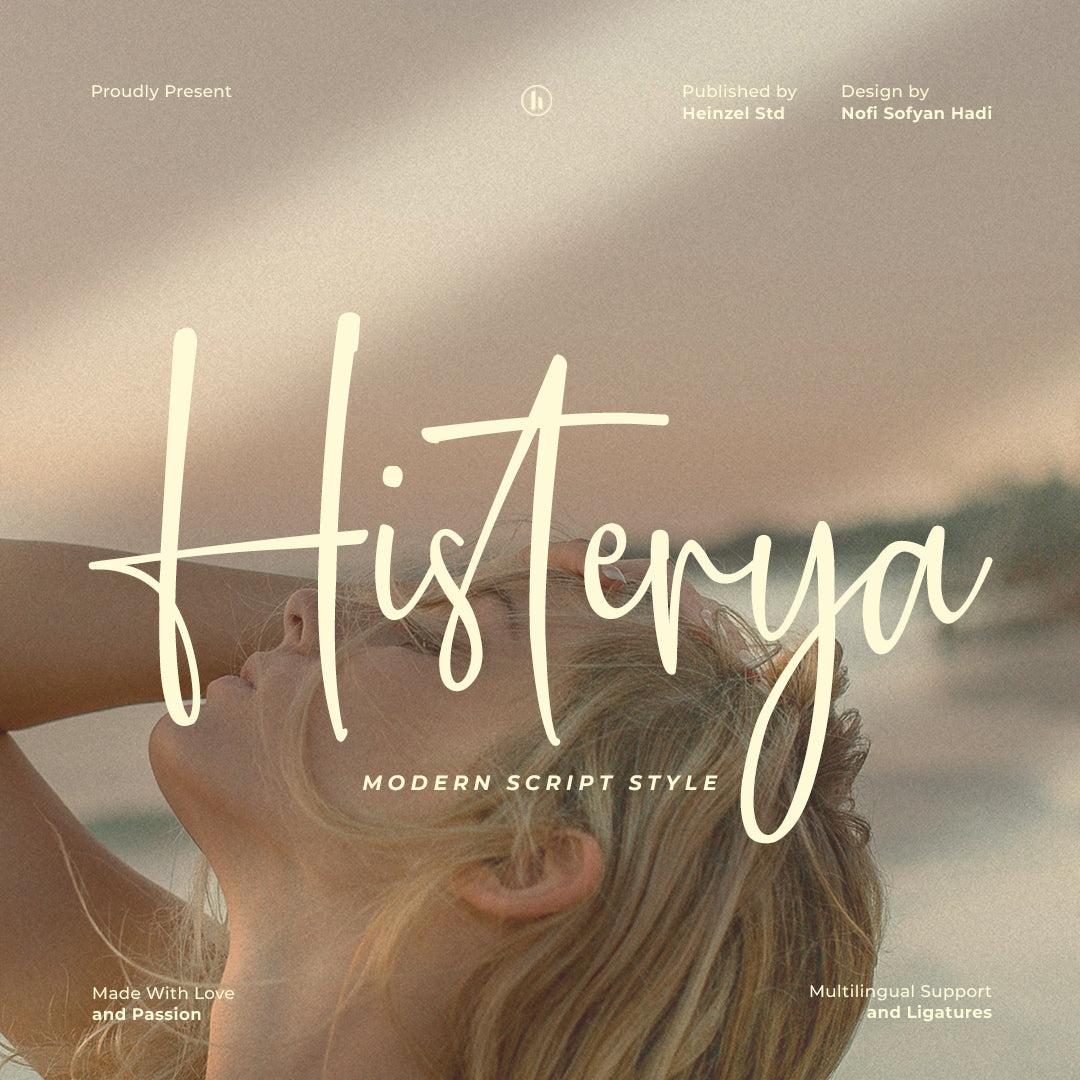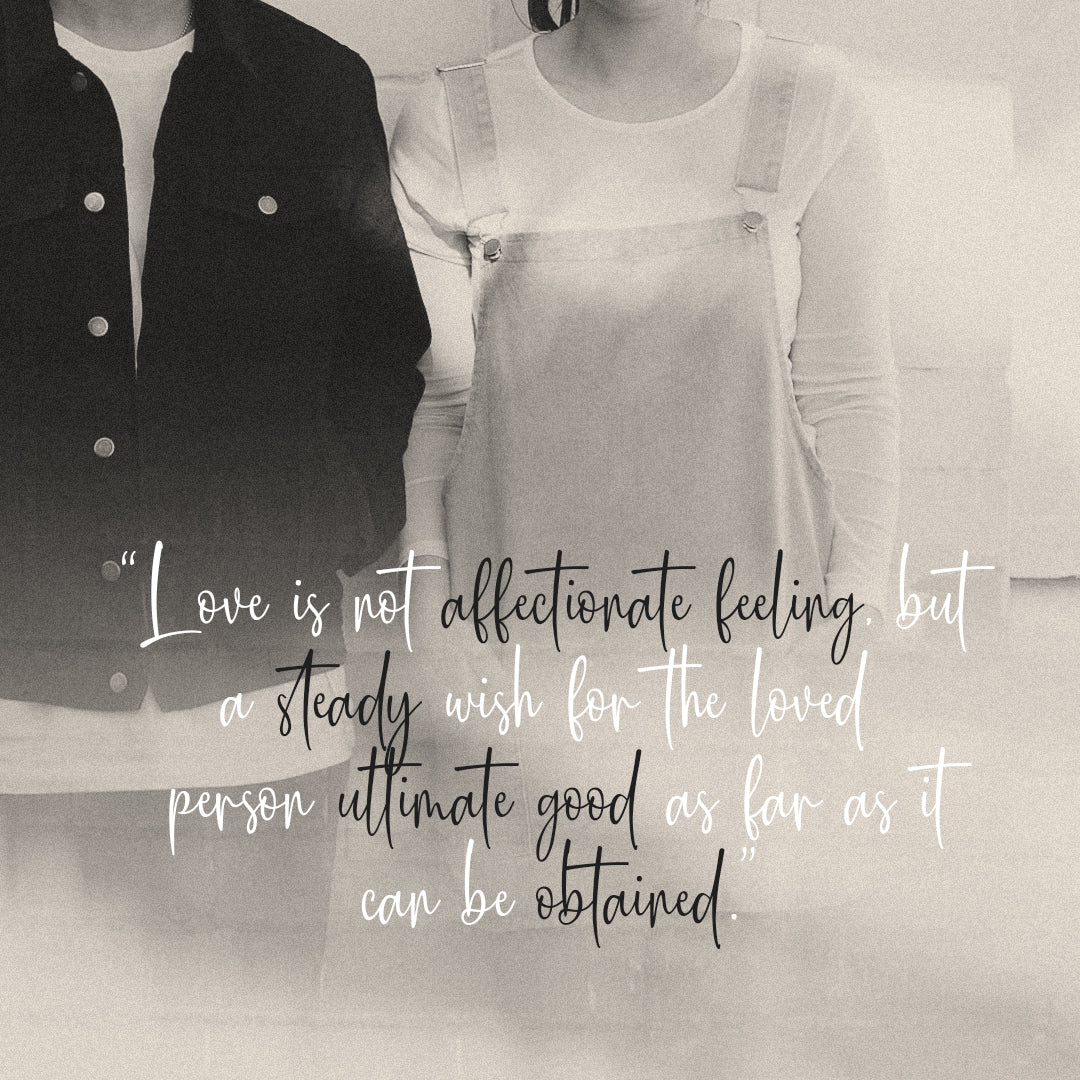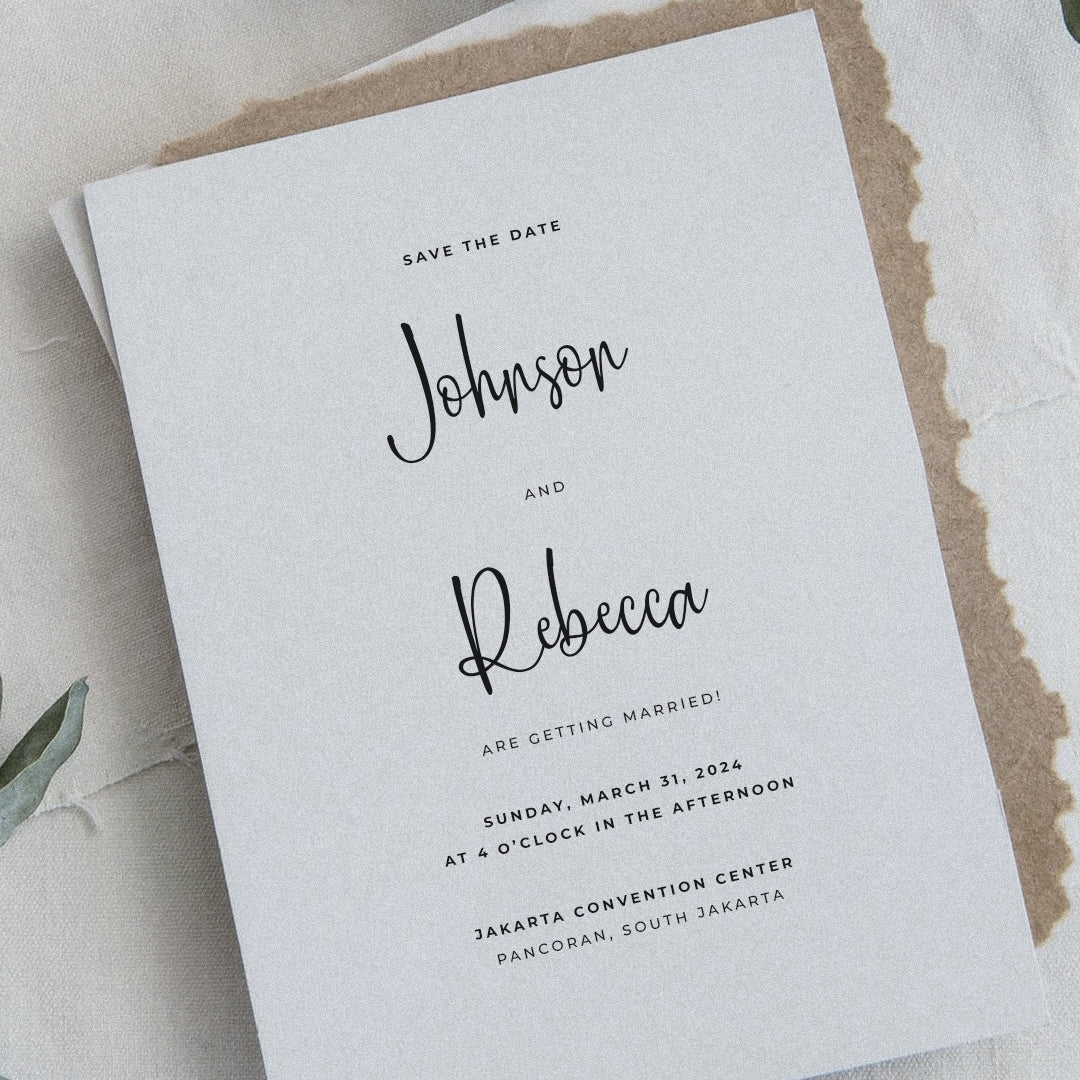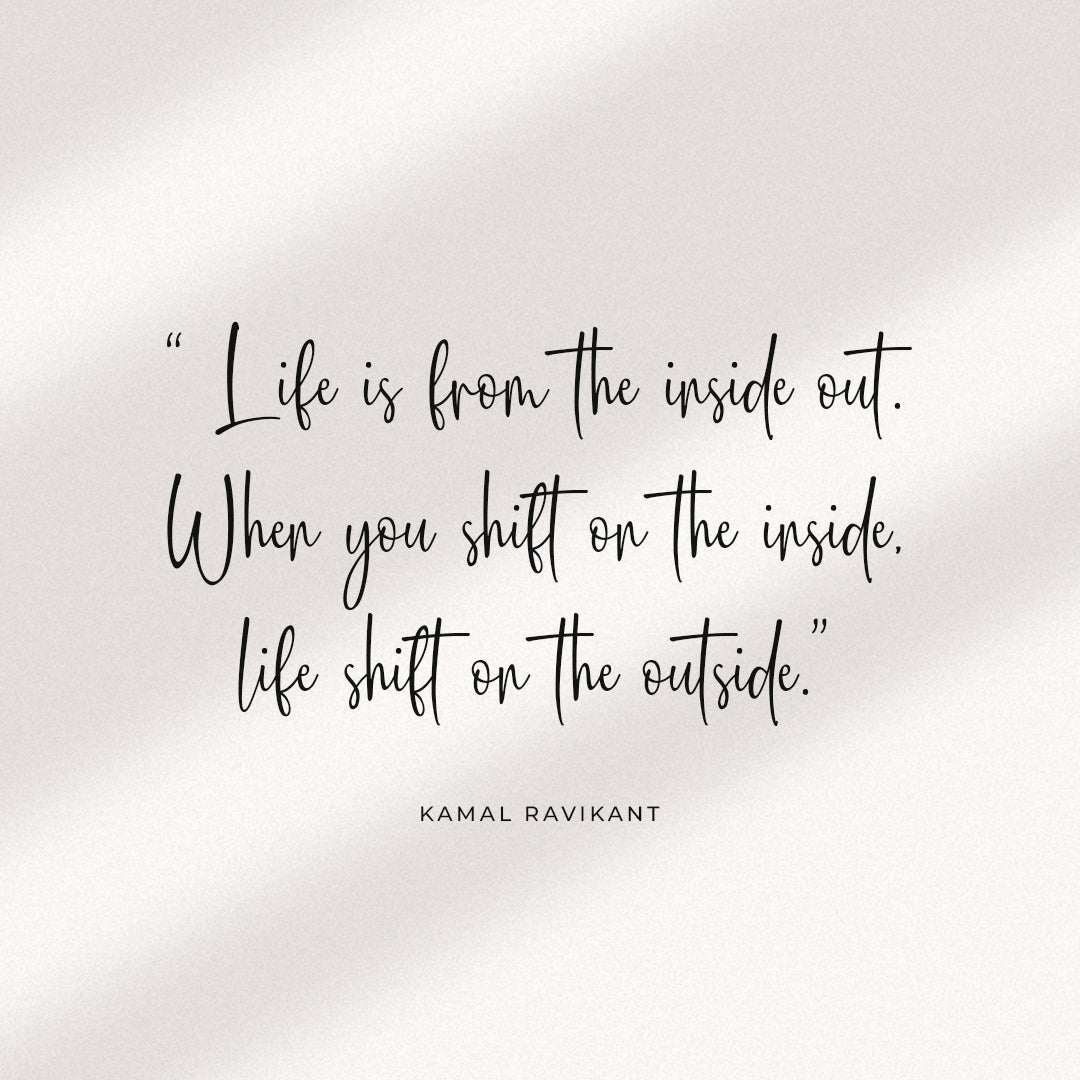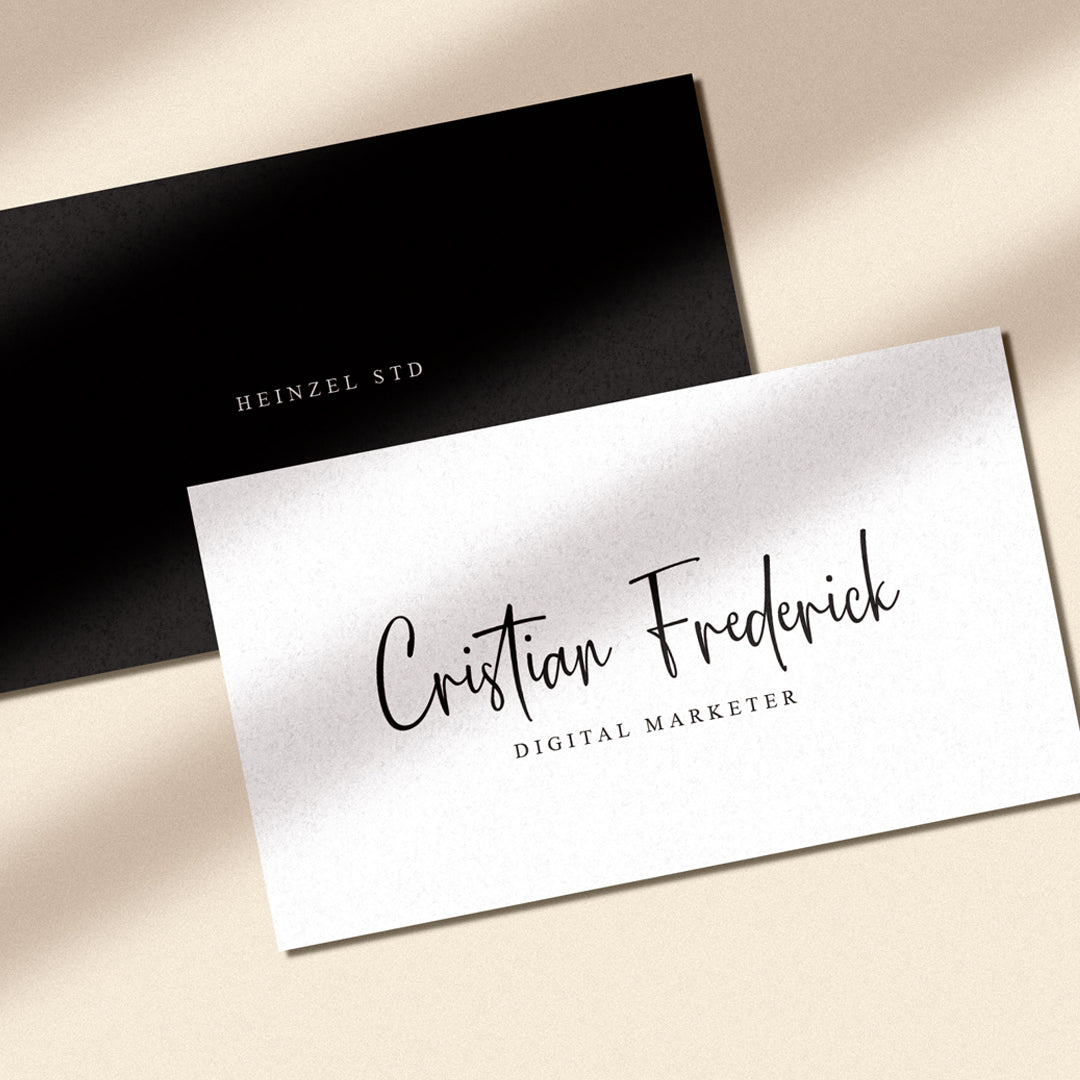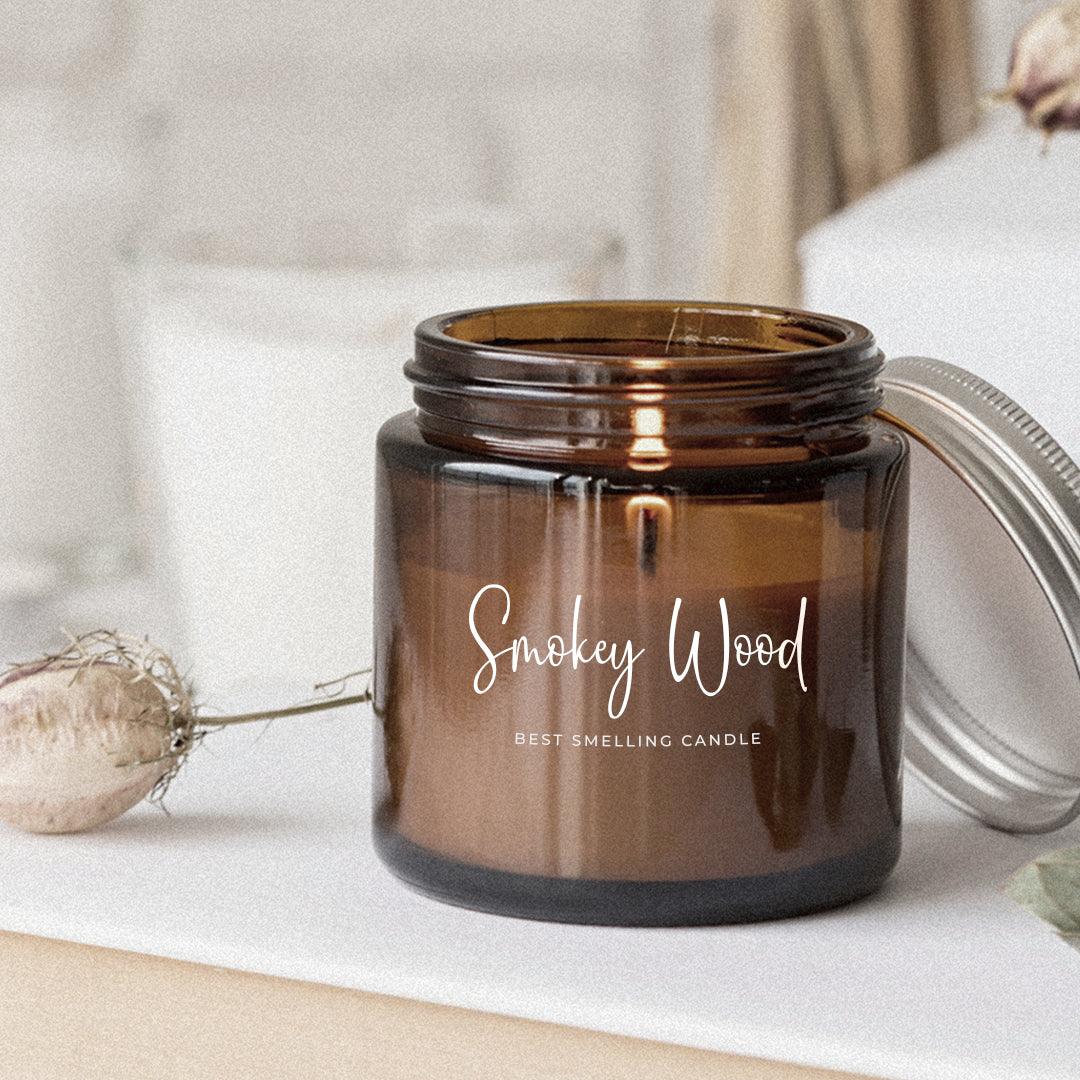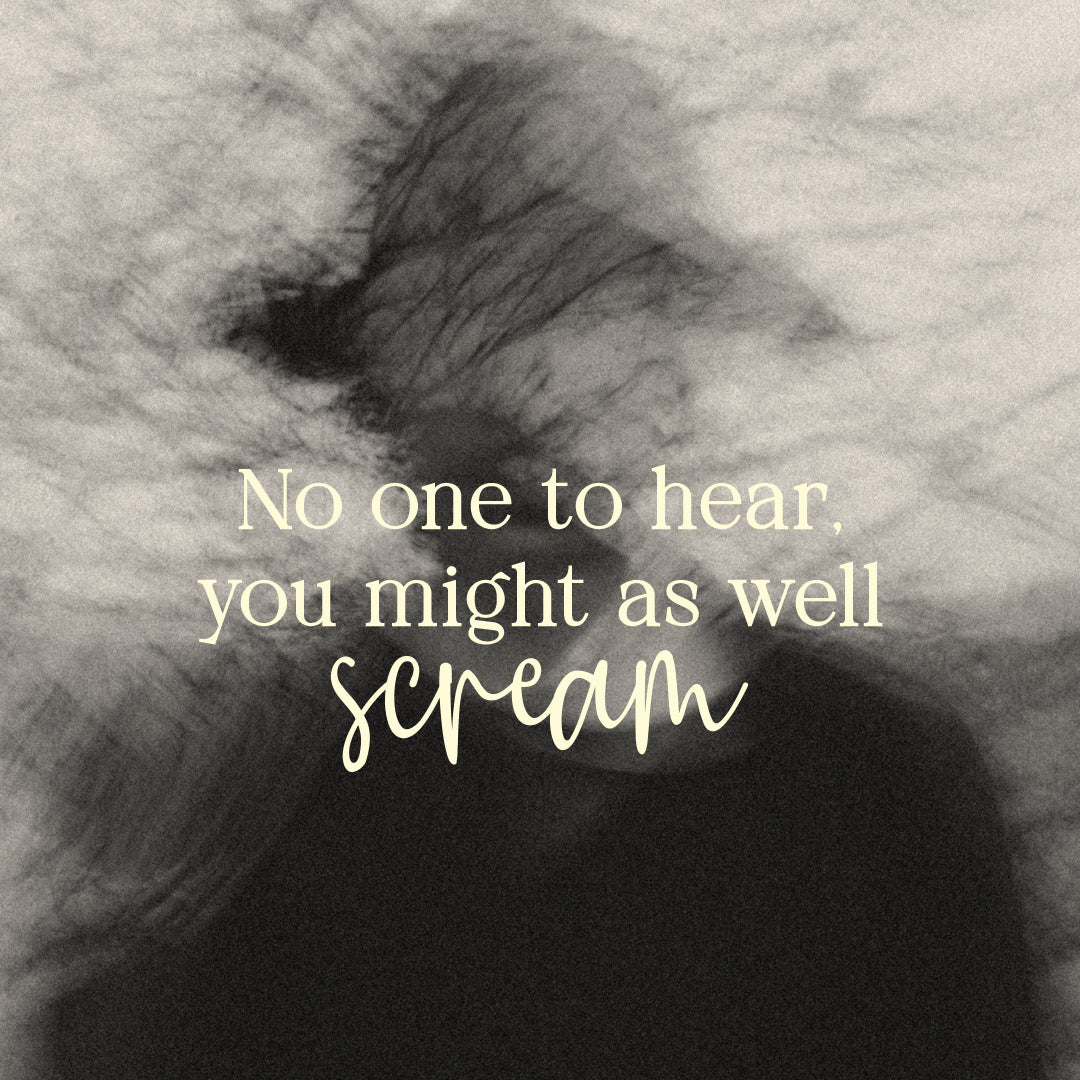
Histerya Modern Script Font
Histerya is a modern script font designed with a natural handwritten style that blends elegance and personality. Its flowing curves and smooth strokes make it the perfect choice for creative projects that need a touch of sophistication.
Whether you're designing a logo, wedding invitation, branding package, social media post, or product packaging, Histerya adds a graceful and timeless feel. With its versatile style, this font suits both minimalist designs and luxurious layouts.
Histerya Modern Script Font is a handwritten-style script font featuring flowing curves and smooth strokes. It is suitable for both minimalist and luxurious design layouts.